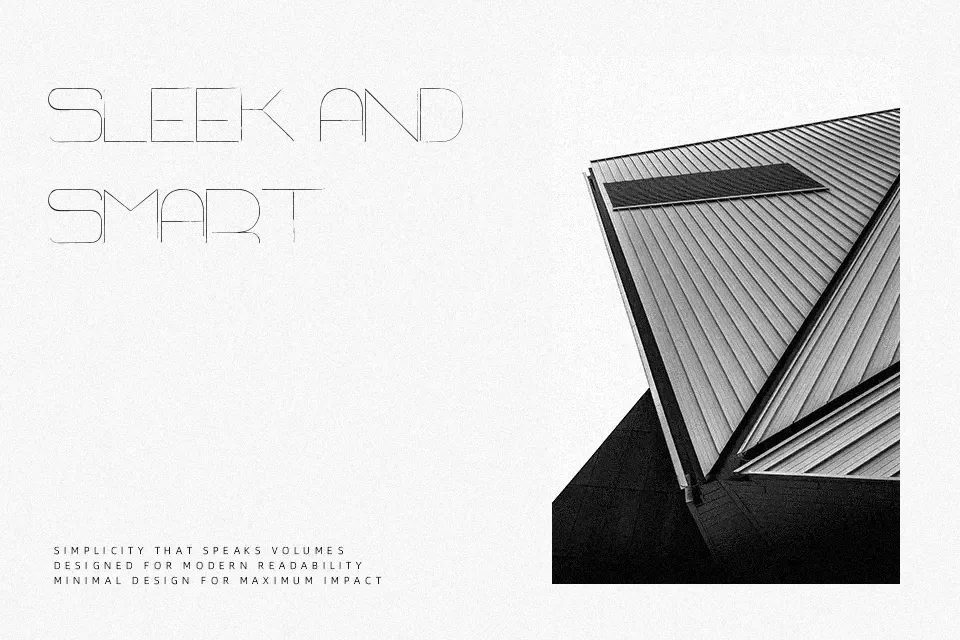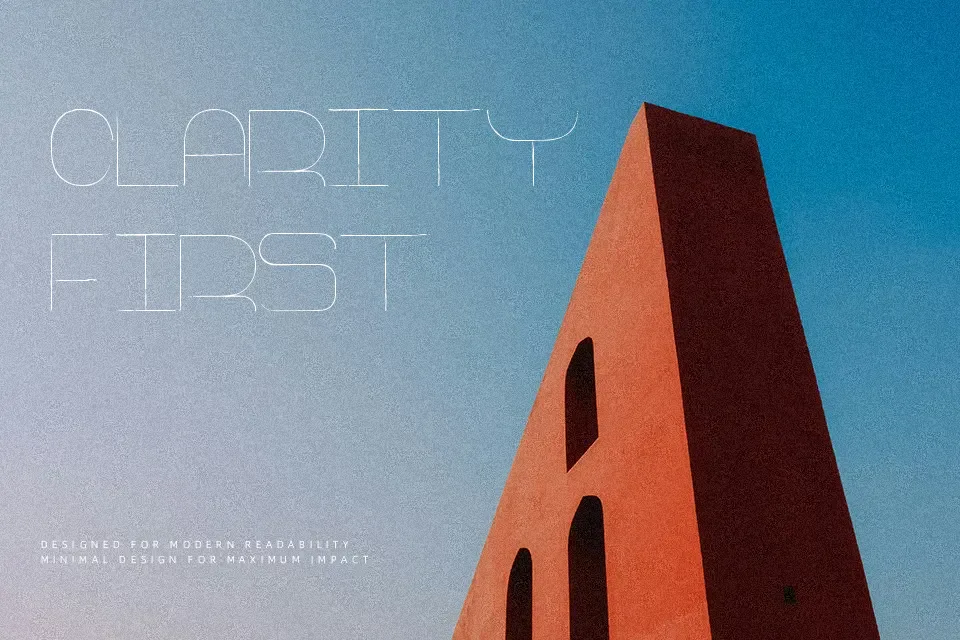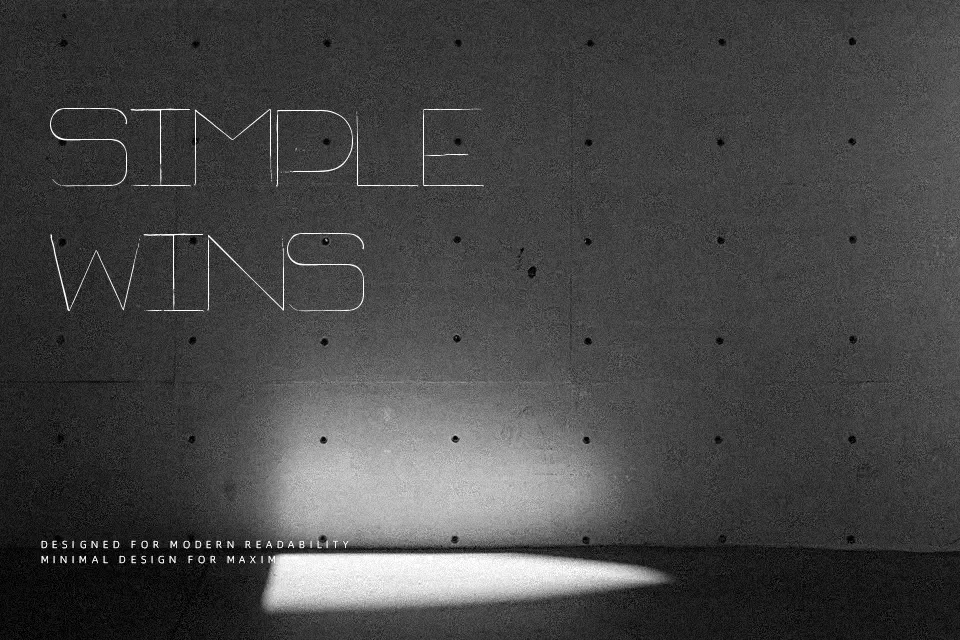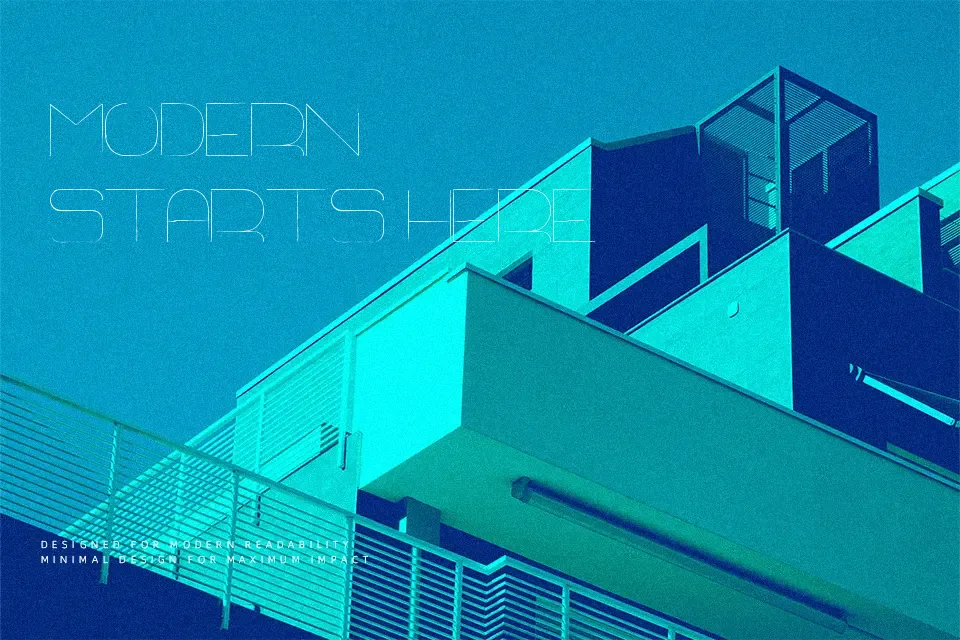
Thin Franq Font
Defined by slender linear strokes, Thin Franq Font presents an airy aesthetic built upon tall vertical proportions and wide character tracking. The typeface maintains consistent monoline thickness across every glyph, giving uppercase and lowercase shapes an open, uncluttered cadence. Spacing remains intentionally wide, allowing generous breathing room that preserves letterform distinction at scale. In practical application, the design excels in modern exhibition banners, cosmetic packaging titles, and luxury editorial titles. However, the delicate stroke weight loses definition at small sizes and dissolves against textured backgrounds. The letterforms ultimately reward generous scale where the quiet elegance can breathe properly.
Best For: art exhibition posters, cosmetic packaging, website hero headlines
Not Ideal For: long paragraph text, small interface labels, dense technical manuals
Perfect for editorial, fashion, and headline, with a clean and display style.